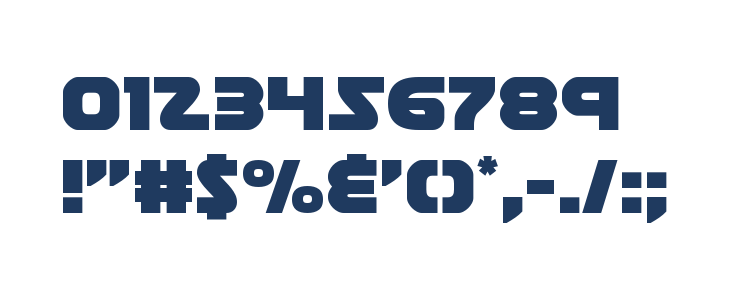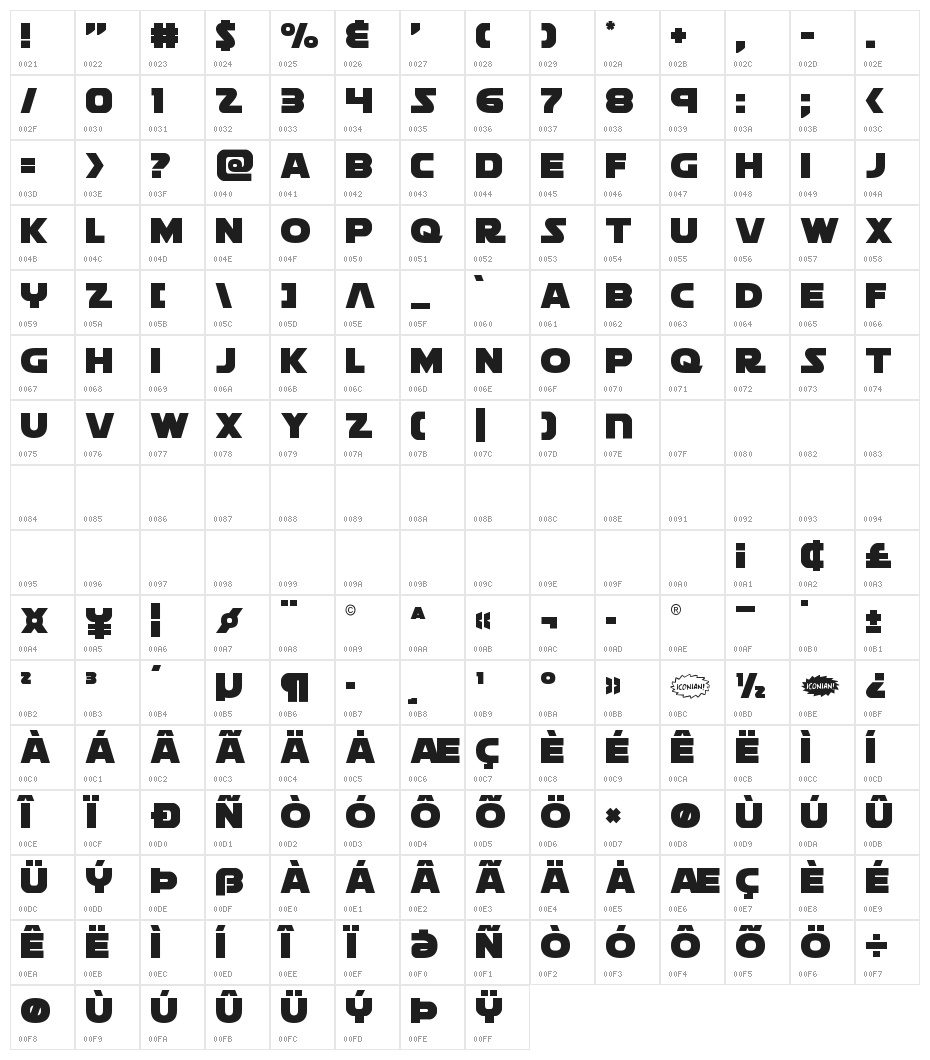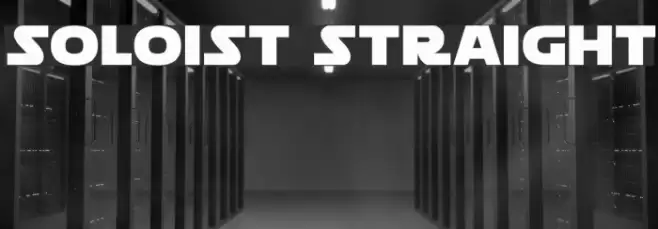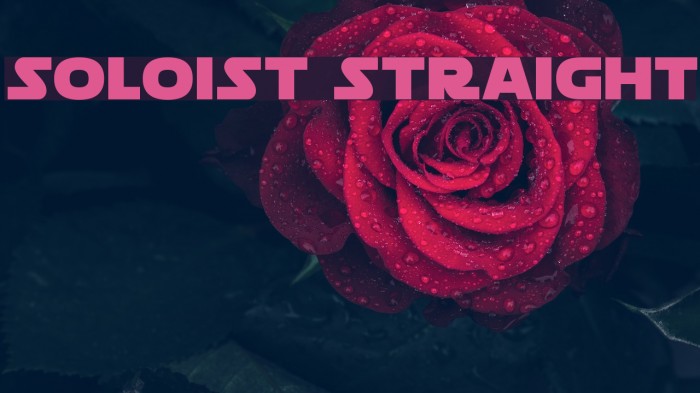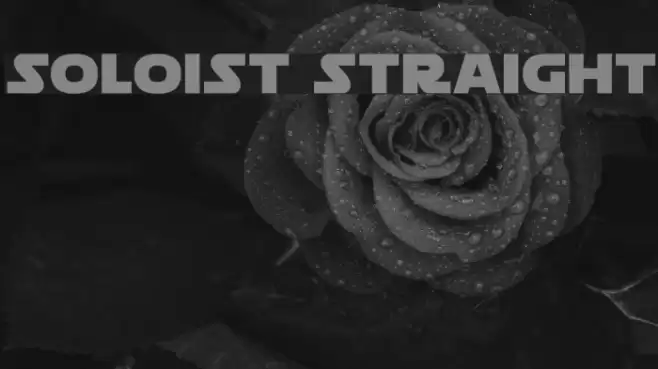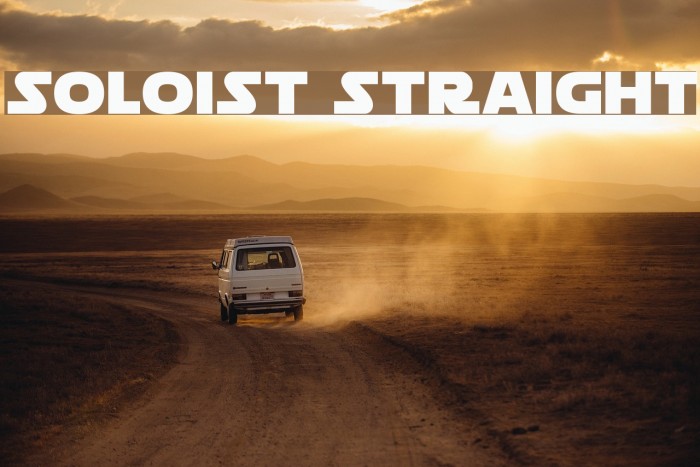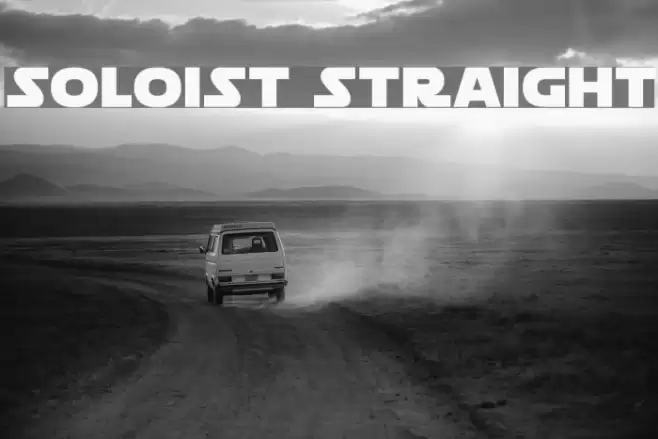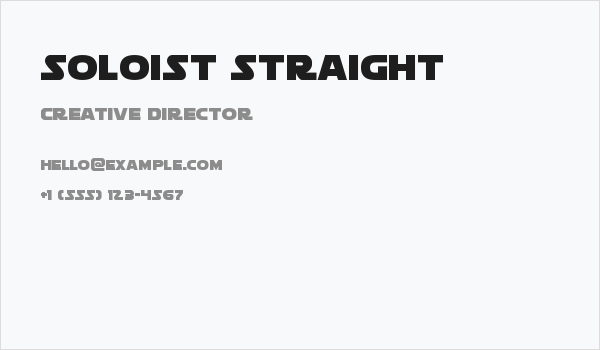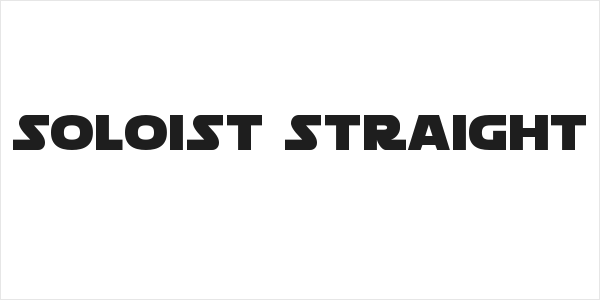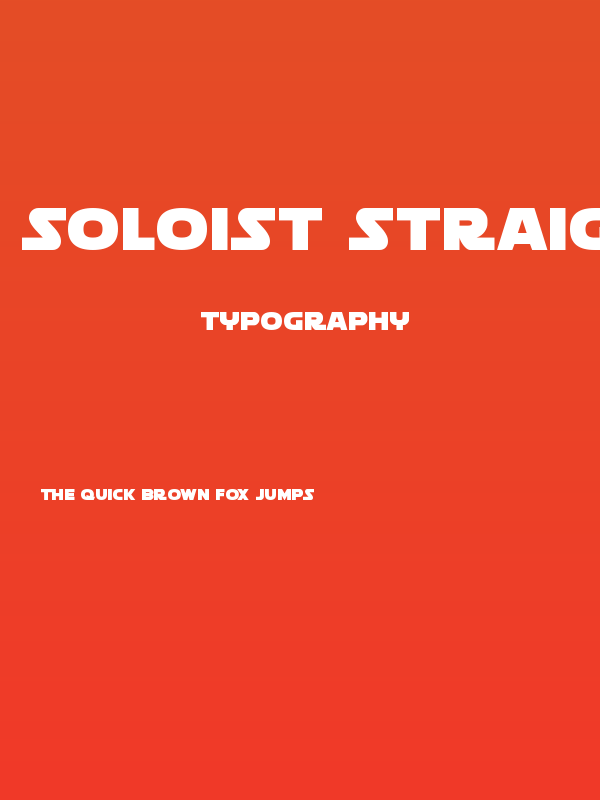
Soloist Straight Font
Soloist Straight Description
This font features bold, geometric letterforms with a strong presence. The characters are constructed with thick, even strokes that create a sense of stability and power. The uppercase letters are particularly striking, with sharp angles and a uniform height that enhances readability. The numbers and special characters maintain the same boldness, ensuring consistency across all text elements. The overall design is modern and assertive, making it ideal for projects that require a strong visual impact.
| Proposed Projects | Ideal for branding, headlines, posters, and any design requiring a bold statement. |